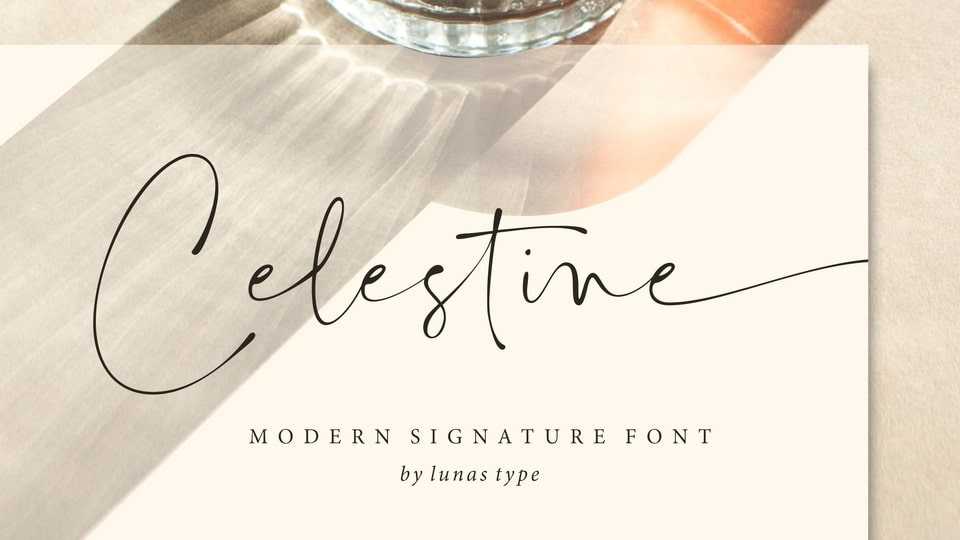
Celestine Font › Fontesk – Download Grátis
Download Celestine font, a modern signature style handwritten typeface. Celestine is perfect for many design needs such as merch, t-shirts, logo, titles, wedding, book covers, social media posts, websites, events, and many more.
Designer: Lunas Type